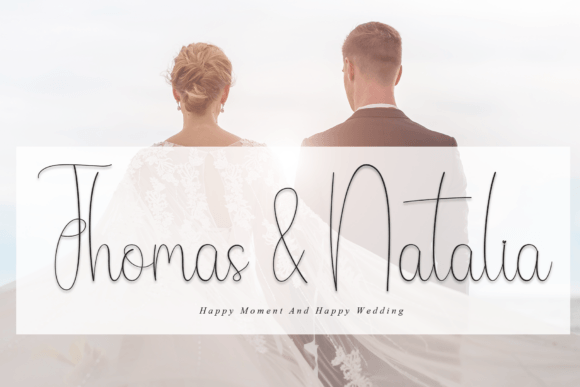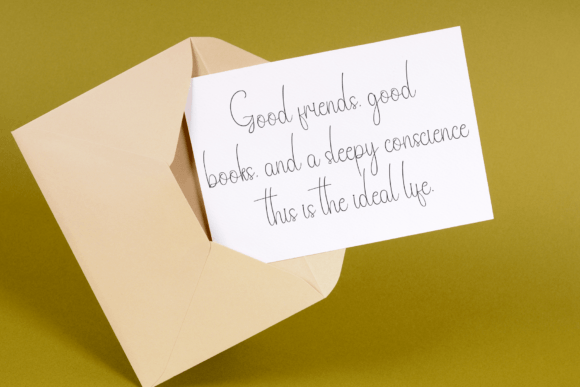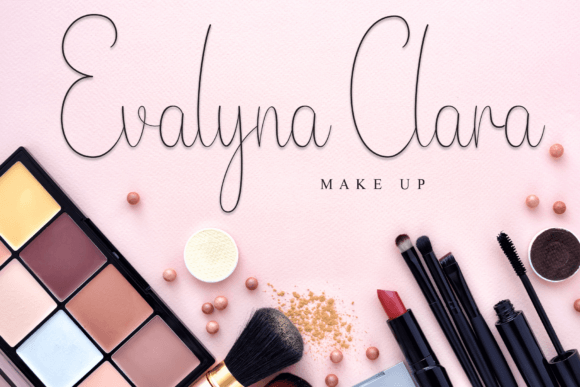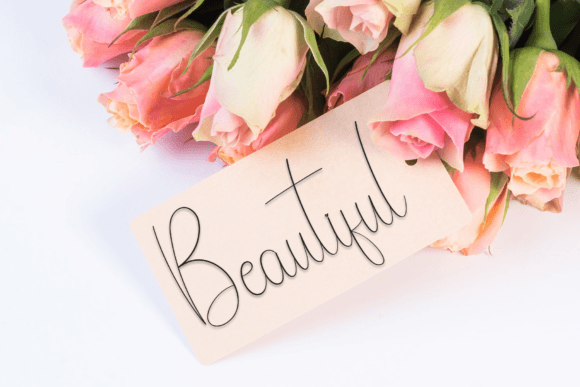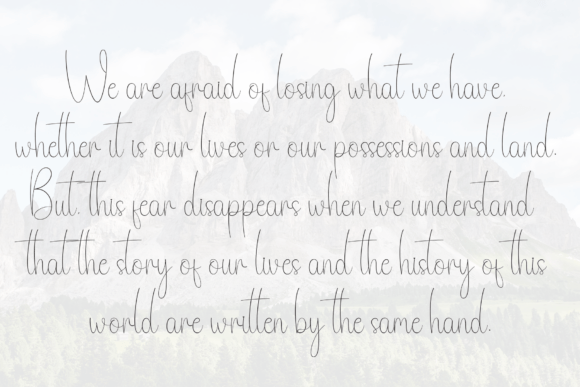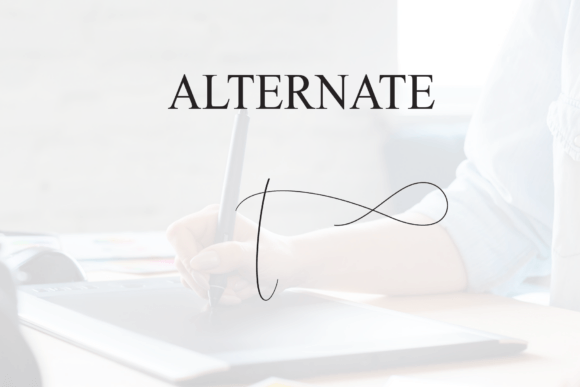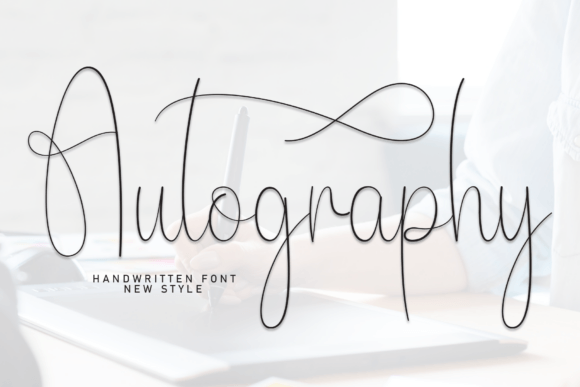
Welcome to the Enchanting World of Autography Font
Imagine you’re working on a wedding invitation project, and your client asks for a font that’s elegant, yet playful; a font that will make their special day feel truly unforgettable. You’re scrolling through your font library, but nothing seems quite right. That’s when you stumble upon Autography Font – a charming handwritten display font that instantly captures your heart. In this article, we’ll dive into the delightful world of Autography Font, exploring its features, uses, and everything in between.
A Personal Love Affair with Autography Font
As a designer, I’ve had my fair share of font struggles. But the moment I laid eyes on Autography Font, I knew I had found something special. Its adorable yet refined style has a knack for catching eyes and winning hearts. Whether you’re working on wedding invitations, personalized greeting cards, or any design that craves a sprinkling of enchanting appeal, Autography Font is the perfect choice.
What I Love About Autography Font
• ✨ Elegant yet whimsical design that’s perfect for special occasions
• ✅ Wide range of applications, from wedding invitations to personalized greeting cards
• 💕 Adorable and refined style that injects joy into your creations
• 🎉 Fun and heart-warming touch that’s sure to delight your audience
While Autography Font is a stunning addition to any design, there are a few things to keep in mind:
• 🤔 Limited use of uppercase letters, which can make it less suitable for certain applications
• ⚠️ May not be the best choice for body text, as it’s primarily designed for display purposes
Autography Font was inspired by the art of handwriting and the joy of creating something beautiful. Our designer wanted to create a font that would capture the essence of elegance and whimsy, perfect for special occasions and everyday designs. With Autography Font, you’ll be able to add a touch of personality and charm to your creations.
What is Autography Font best used for? Autography Font is perfect for wedding invitations, personalized greeting cards, and any design that craves a sprinkling of enchanting appeal.
Is Autography Font suitable for body text? No, Autography Font is primarily designed for display purposes and may not be the best choice for body text.